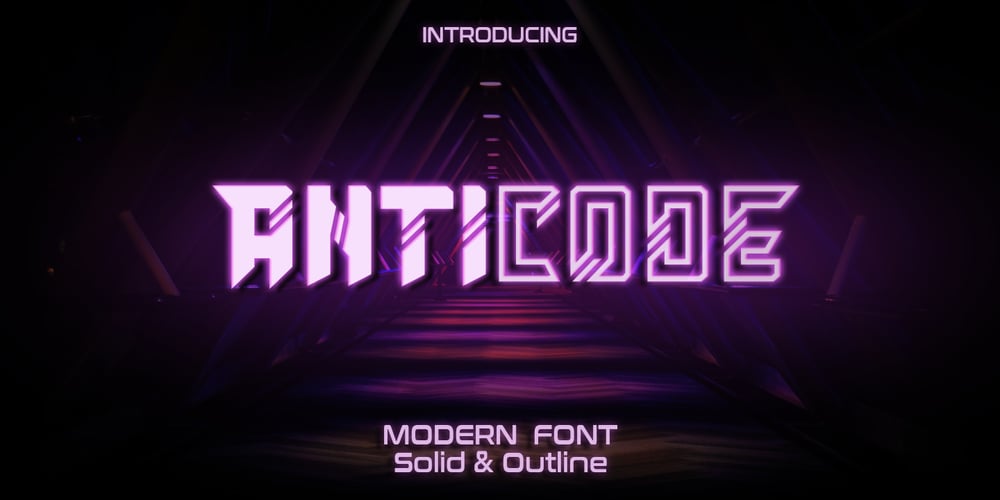
Anticode
Anticode font
Anticode Font Family was designed by RoninDesign and published by Ronin Design. Anticode contains 2 styles and family package options. Anticode is a modern display font. Featuring a solid style and outline style. Anticode font will bring of your creative ideas to the highest level. This font is perfect for game/app designs, logo designs, poster and many more.